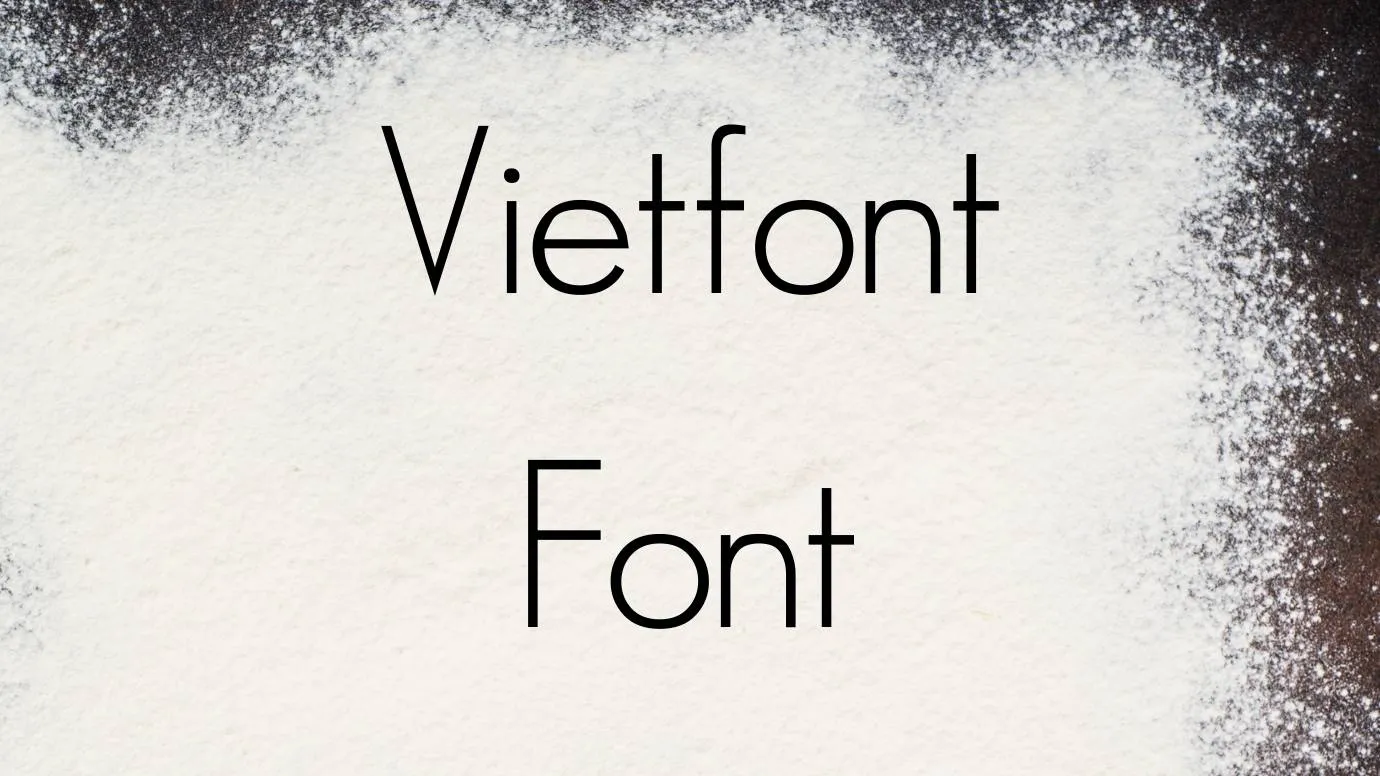
Vietfont Font Family is a Sans Serif font, created by an unidentified designer, boasts over 150 unique characters. Featuring 52 glyphs and 1024 units per em, it is available in both TTF and OTF formats and various weights.
This typeface has a cool appearance and is most acceptable for fun graphics, video gaming, and many other related purposes. It is also perfect for making combinations with Unica One Font.
Vietfont Font